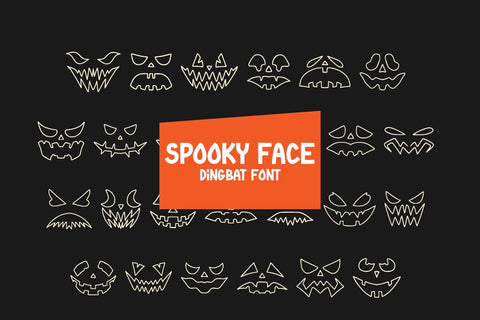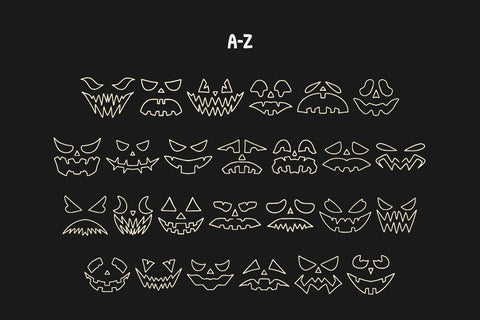
Spooky Face - Dingbat FOnt
Spooky Face is a unique and creative dingbat font. This font is inspired by the Halloween theme. it contains glyphs of various spooky faces